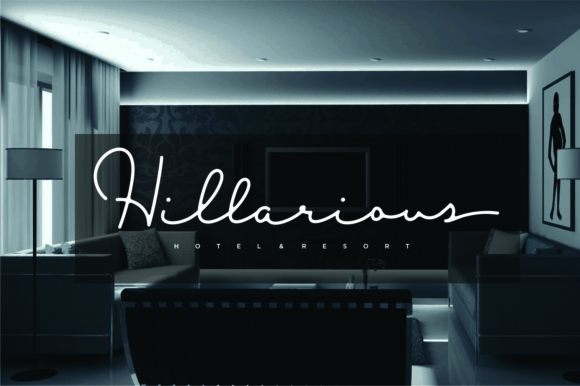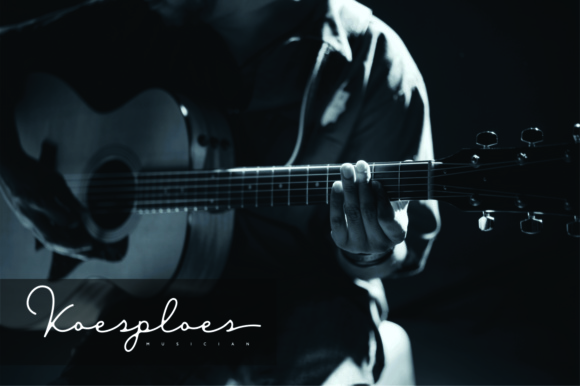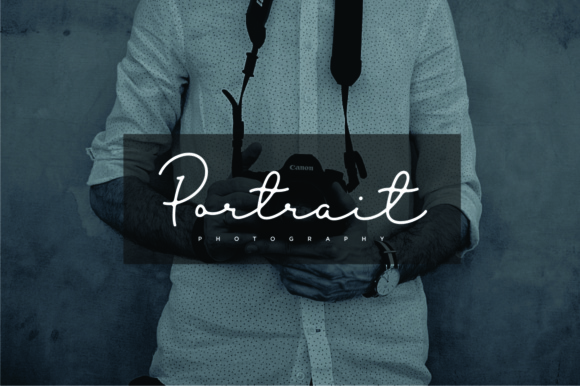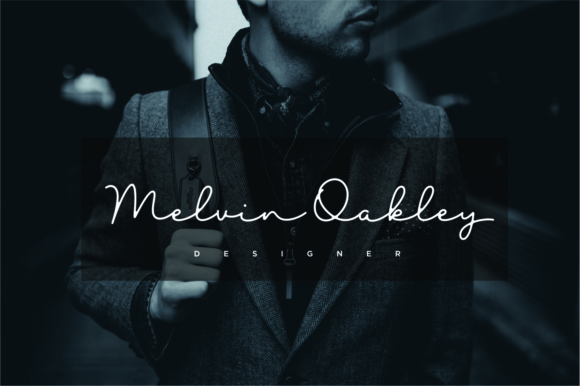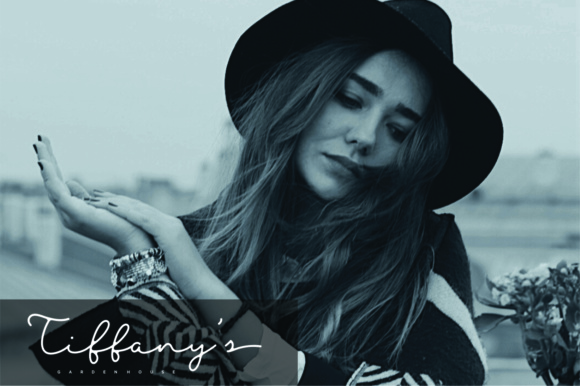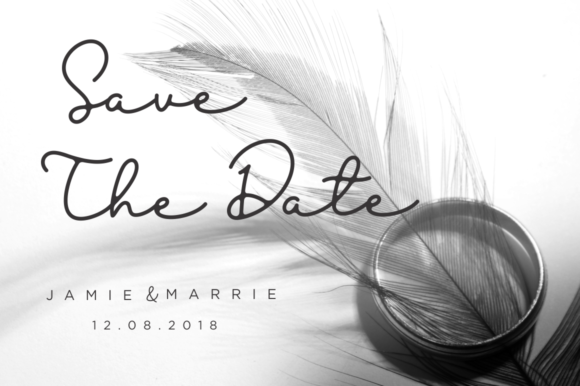
The Blesson Font: Elevating Your Designs with Elegance
Have you ever been in the middle of a design project, and suddenly, you’re stuck on finding the perfect font? I recall a recent experience where I was working on a wedding invitation design, and my client specifically asked for a modern, elegant signature typeface that would make their special day even more memorable. After scouring through numerous font libraries, I stumbled upon the Blesson Font, and it instantly became the perfect fit.
A Modern Signature Typeface
Blesson is a new, modern signature typeface that boasts fine strokes and elegant lines, making it perfect for personal branding and a wide range of projects, including logos, invitations, stationery, wedding designs, social media posts, advertisements, product packaging, and much more! Its versatility and sophistication make it an excellent addition to any designer’s toolkit.
• ✨ Elegant and modern design that instantly elevates any project
• ✅ Fine strokes and lines that provide a sophisticated feel
• 💫 Perfect for personal branding, wedding designs, and high-end projects
• 🎨 Highly versatile and can be used for a wide range of applications
While the Blesson Font is an excellent choice, there are a few minor limitations to consider:
• 🤔 Limited availability of certain OpenType features, which might restrict its use in specific design applications
• ⚠️ Some users might find the font’s elegance and sophistication too refined for casual or playful projects
The Designer Inspiration Behind Blesson
The Blesson Font was designed with the intention of creating a modern, elegant signature typeface that would cater to the needs of designers, crafters, and creative hobbyists. The design process involved a deep understanding of the requirements of high-end projects, such as wedding designs, luxury branding, and editorial design. The result is a font that exudes sophistication, elegance, and refinement.
Q: What type of projects is the Blesson Font best suited for?
A: The Blesson Font is perfect for personal branding, wedding designs, luxury branding, editorial design, and high-end projects that require a touch of elegance and sophistication.
Q: Does the Blesson Font support OpenType features?
A: Yes, the Blesson Font supports OpenType features, including glyphs and stylistic alternates, which can be accessed through compatible design software.